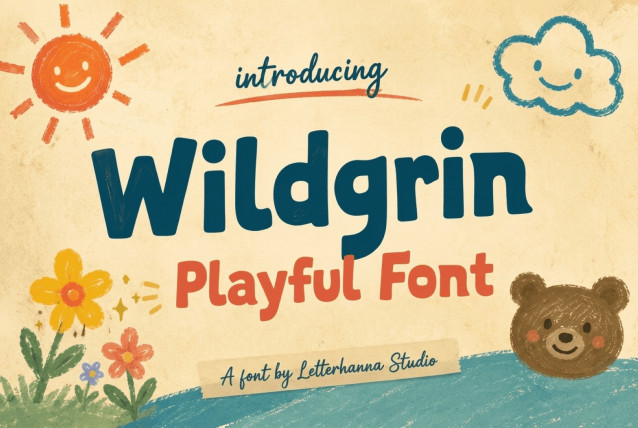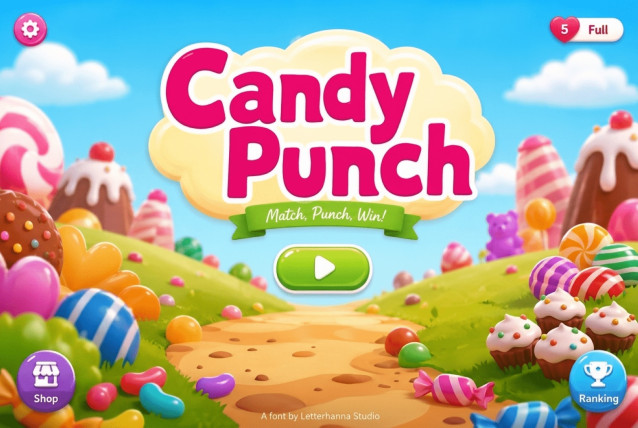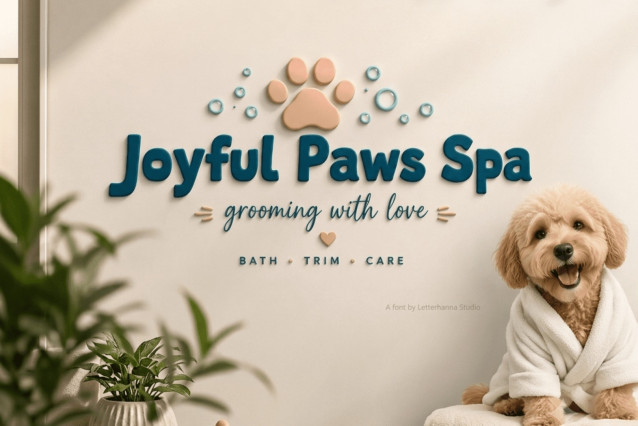
Wildgrin Demo Font
Wildgrin Font: A Bold Playful Hand-Lettered Typeface for Fun Brands
Some fonts whisper. Wildgrin shouts, laughs, and bounces off the page — and that’s exactly the point. If you’ve been hunting for a playful bold font that feels handmade rather than machine-perfect, Wildgrin is built for that exact gap between “professional” and “boring.”
At first glance, Wildgrin reads like something a confident kid scrawled with a fat marker, then someone with a design degree quietly cleaned up. The letterforms are thick, rounded, and slightly uneven in the best way — no two curves are identical, and that irregularity is what keeps it from feeling like a generic rounded sans. The uppercase set leans chunky and confident, almost shouting from the page, while the lowercase set softens into looping. It’s a genuine hand lettered display font, built to look drawn by hand rather than stamped out by a machine.